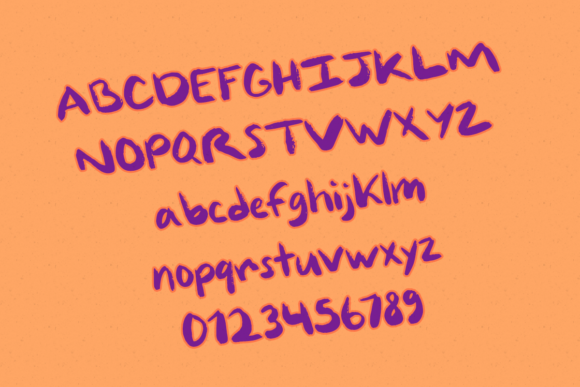
Introduction to Great Answer Font
Great Answer is a whimsical script font.
Get creative with its unique playfulness, and use it to brighten up all your crafting projects .